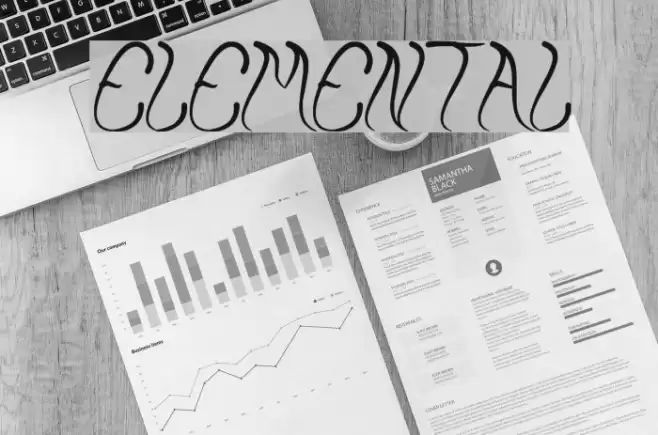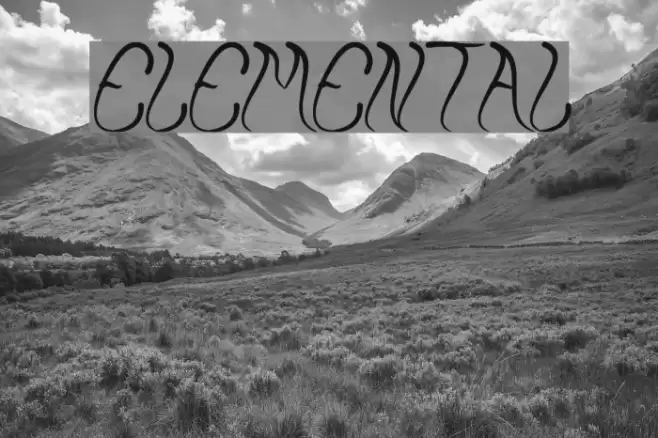
ELEMENTAL Font
ELEMENTAL Description
This font features an elegant and flowing script style, characterized by its smooth, curvilinear strokes and graceful, sweeping lines. The letters are interconnected, creating a sense of fluidity and movement. The overall appearance is sophisticated and artistic, making it suitable for formal and decorative applications. The font maintains a consistent stroke width, providing a balanced and harmonious look. Its unique style is reminiscent of calligraphy, with a modern twist that adds a touch of flair and personality.
An elegant, flowing script font with smooth, curvilinear strokes from Uncategorized fonts.
- Proposed Projects: Ideal for wedding invitations, elegant branding, artistic posters, and decorative headings.
- Use Case: Headlines, Logos, Invitations